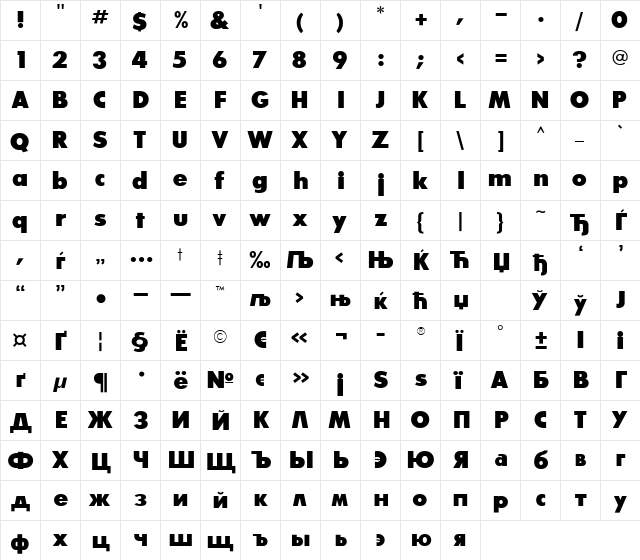
GlasnostExtraboldFWF Regular
Design Context for GlasnostExtraboldFWF Typeface
GlasnostExtraboldFWF takes a measured approach to typography — its balanced proportions and neutral character make it a reliable workhorse for both digital and print work. The heavy weight commands attention and anchors typographic hierarchies.